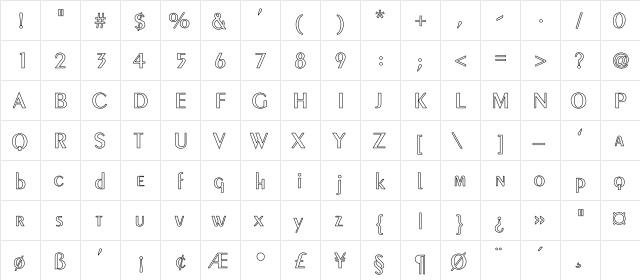
Sailor Hollow Regular
Design Context for Sailor Hollow Typeface
Sailor Hollow takes a measured approach to typography — its balanced proportions and neutral character make it a reliable workhorse for both digital and print work.